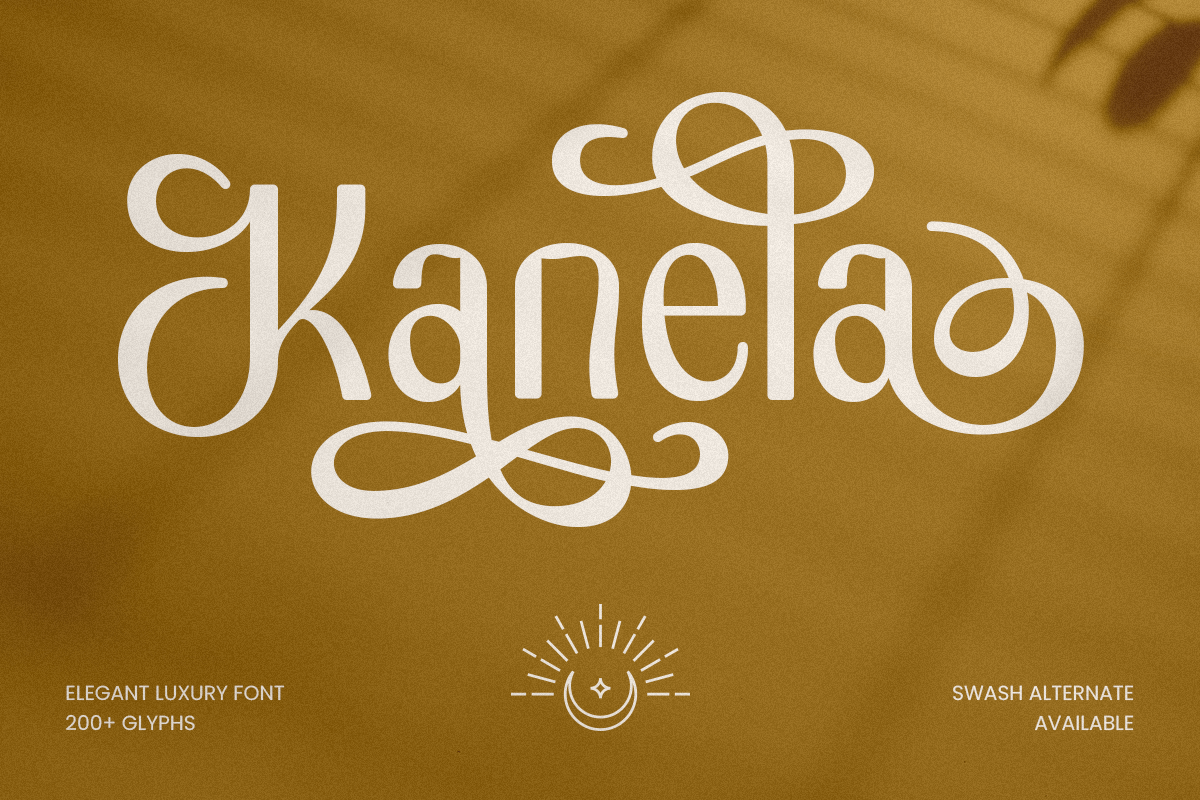
Kanela
-Elegant Luxury FontKanela - Elegant Luxury Font
Kanela is a graceful sans serif font that blends classic elegance with a modern luxury aesthetic. With its soft curves, refined contrasts, and stylish flair, Kanela font is perfect for premium branding, fashion editorials, wedding invites, upscale packaging, and elegant logo designs. Each letterform is thoughtfully shaped to exude timeless beauty and high-end appeal.
Inspired by editorial typography and luxurious lifestyle brands, Kanela font brings a polished and graceful tone to both digital and print projects. Whether you're designing a boutique brand identity or a cinematic title, this font will elevate your visual storytelling.
Let Kanela font become the voice of sophistication in your design arsenal—an elegant choice for projects that demand taste and class.
Kanela Elegant Luxury Font Features:
Elegant Sans Serif Style with Modern Luxury Touch